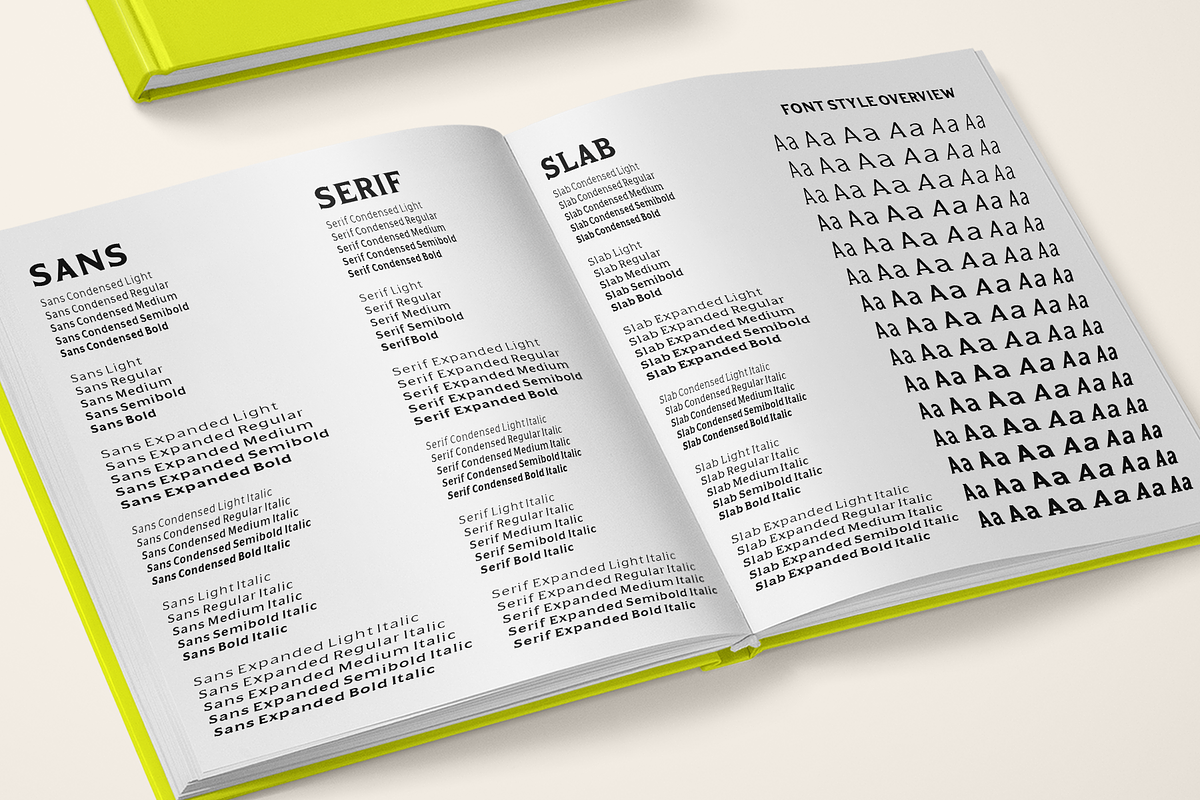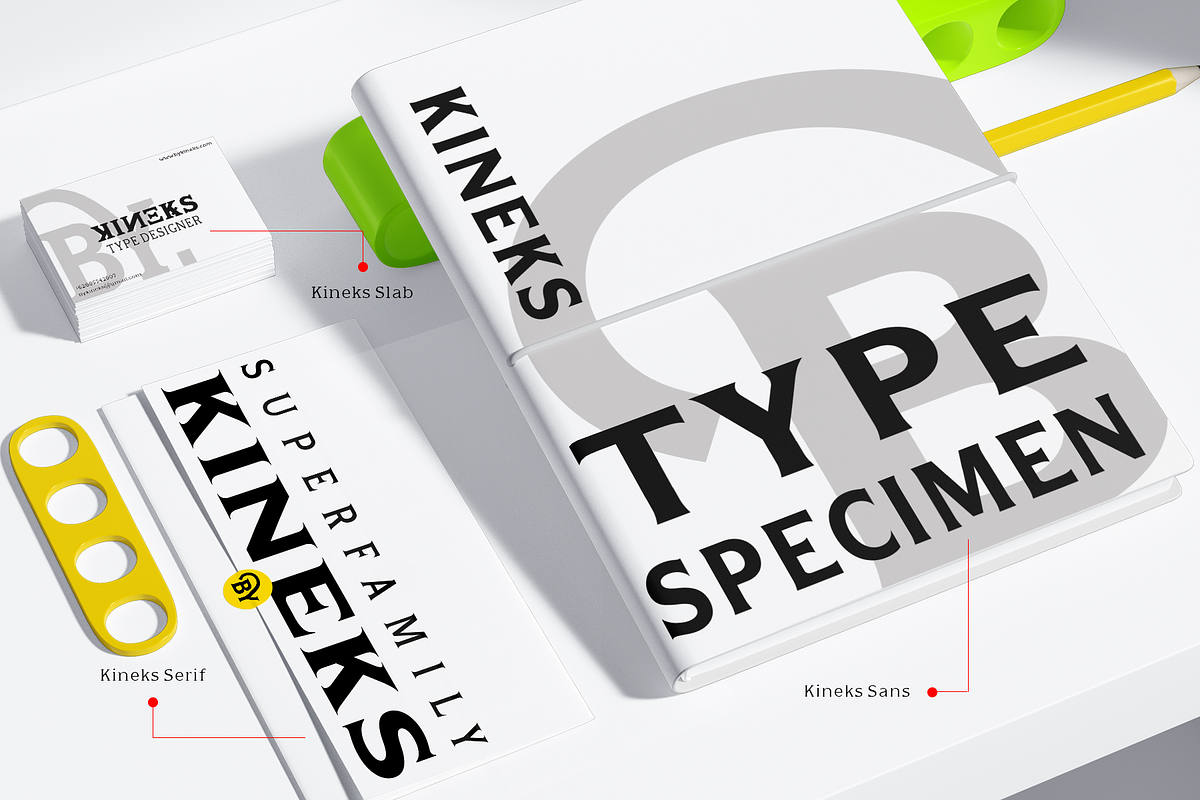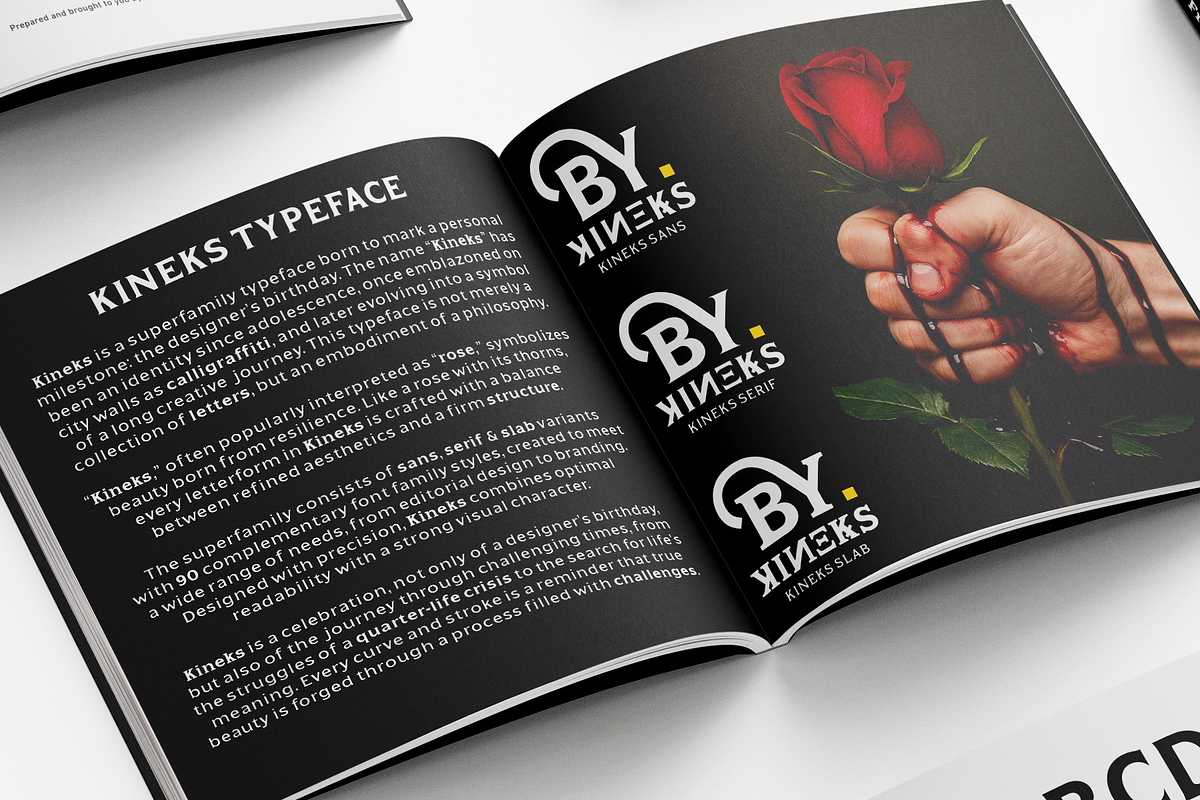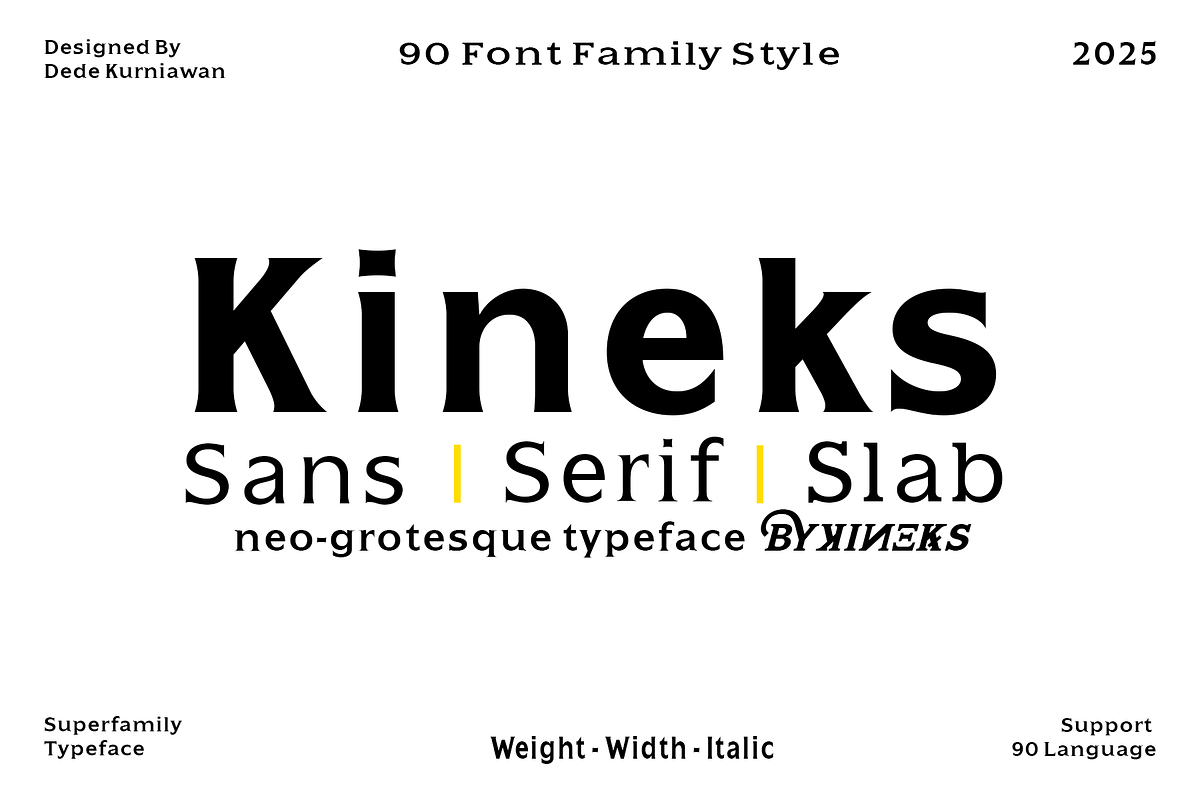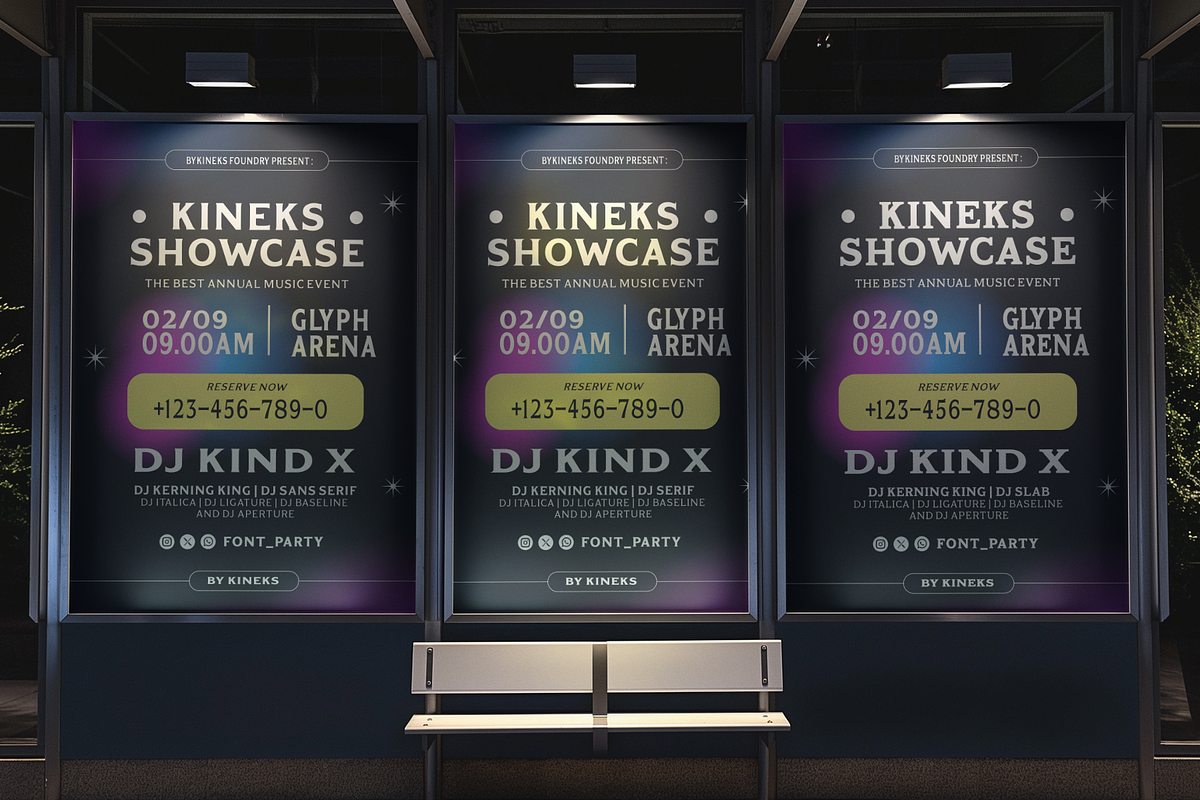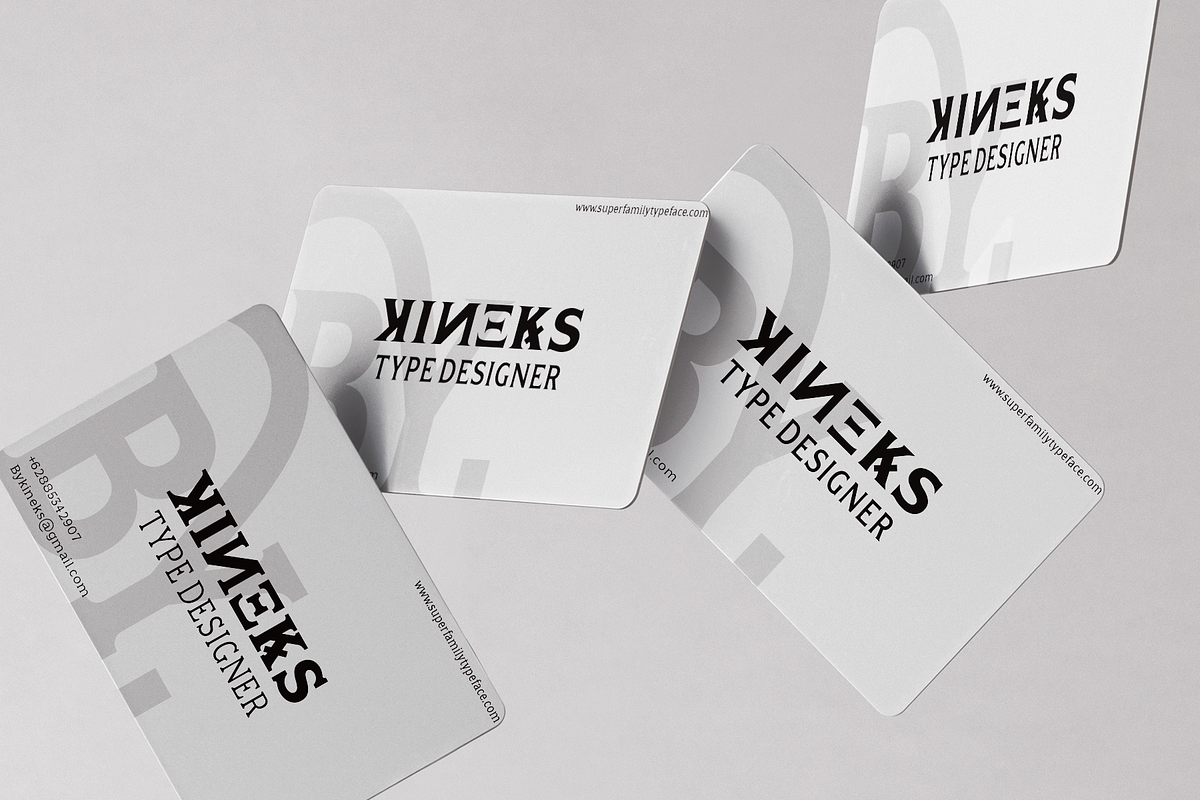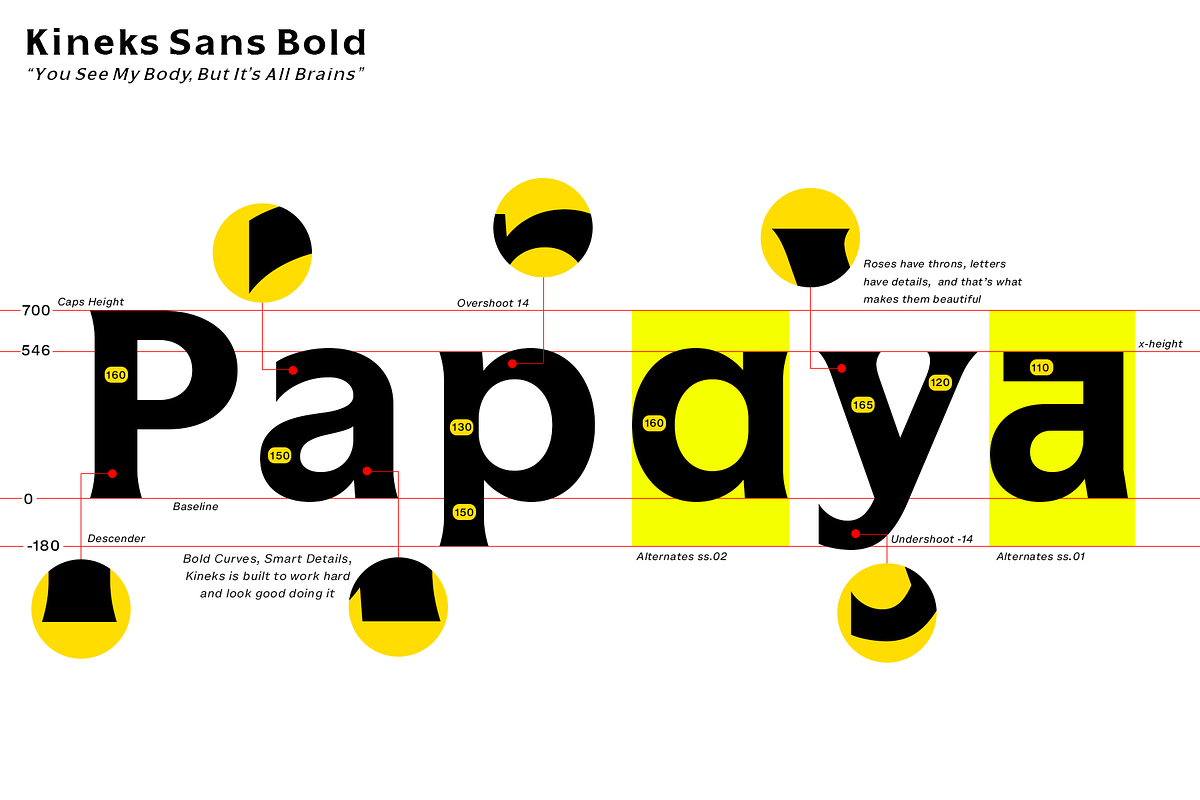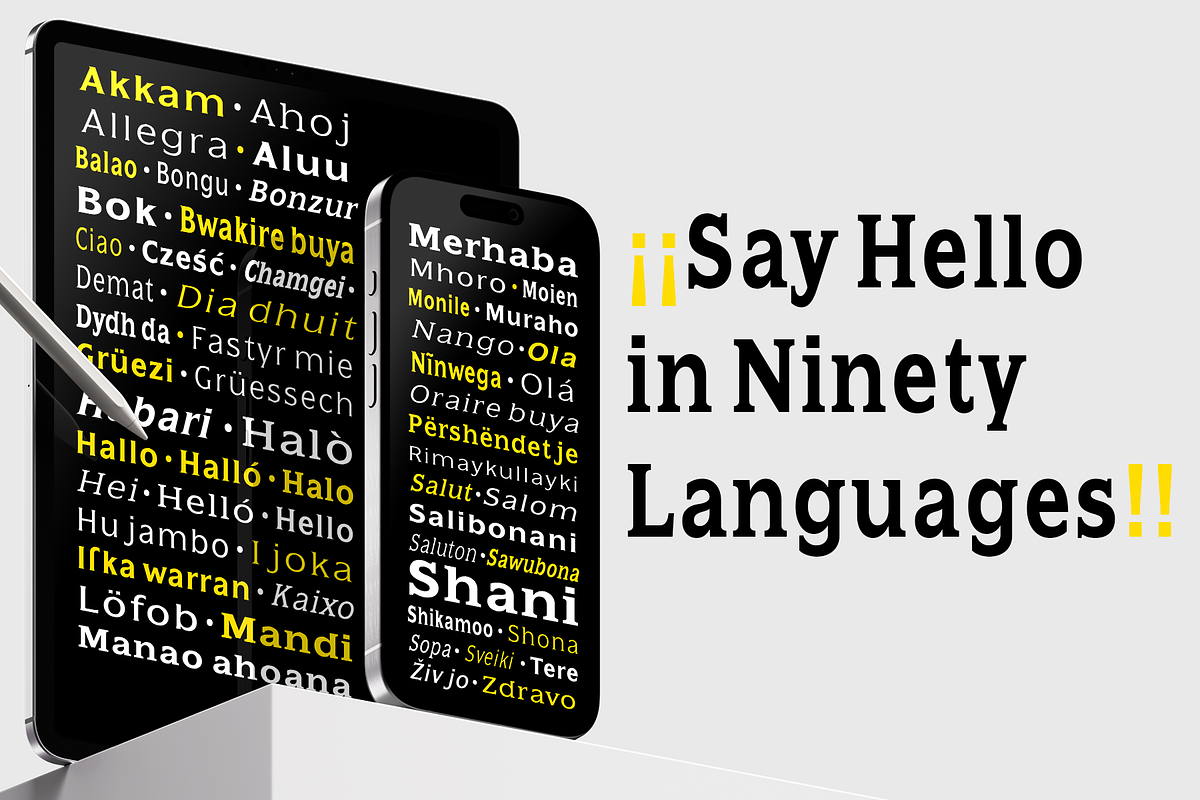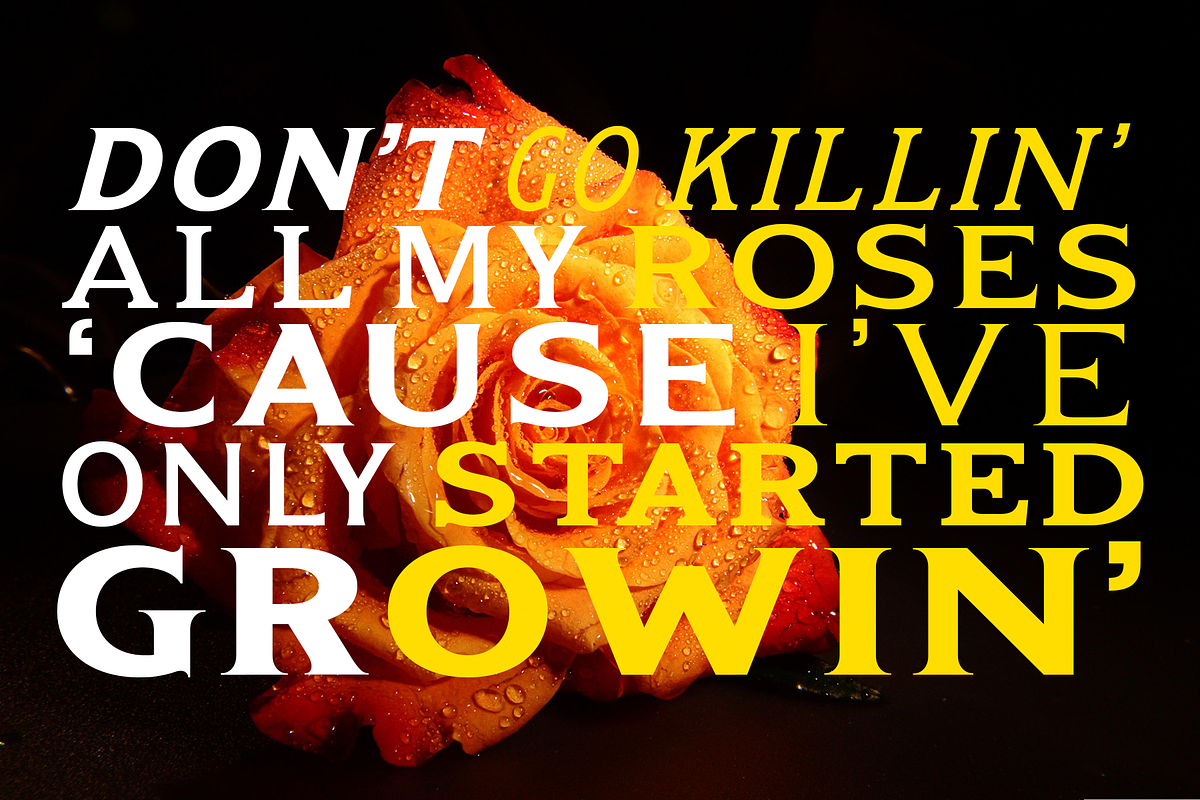
Kineks | Neo-Grotesque Typeface
Kineks Typeface — Superfamily for Modern Design Kineks is a contemporary superfamily designed to meet the demands of today’s designers across branding, editorial, digital, and beyond. With 90 styles spanning Sans, Serif, and Slab, Kineks delivers unmatched versatility for every design scenario.
Rooted in the neo-grotesque tradition, Kineks blends strong structure with refined details, resulting in a typeface that is both highly legible and visually distinctive. Each character is crafted with precision, balancing modern aesthetics with functional readability.
This superfamily comes with a complete range of weights, widths, and italics, empowering designers to move seamlessly from bold brand identities to elegant editorial layouts or clear user interfaces.
With support for 90 languages, Kineks is built for global communication while maintaining its unique character. Inspired by resilience and balance—symbolized like a rose with thorns—Kineks embodies the beauty found in detail, consistency, and strength.
- 90 styles across Sans, Serif, and Slab
- Extensive range of weights, widths, and italics
- Supports 90+ languages for global use
- Neo-grotesque foundation with modern versatility
- Ideal for branding, editorial, UI/UX, advertising, and packaging
With smart details, and a strong visual presence, Kineks is more than a typeface—it’s a design tool that communicates identity, story, and emotion through every letter.